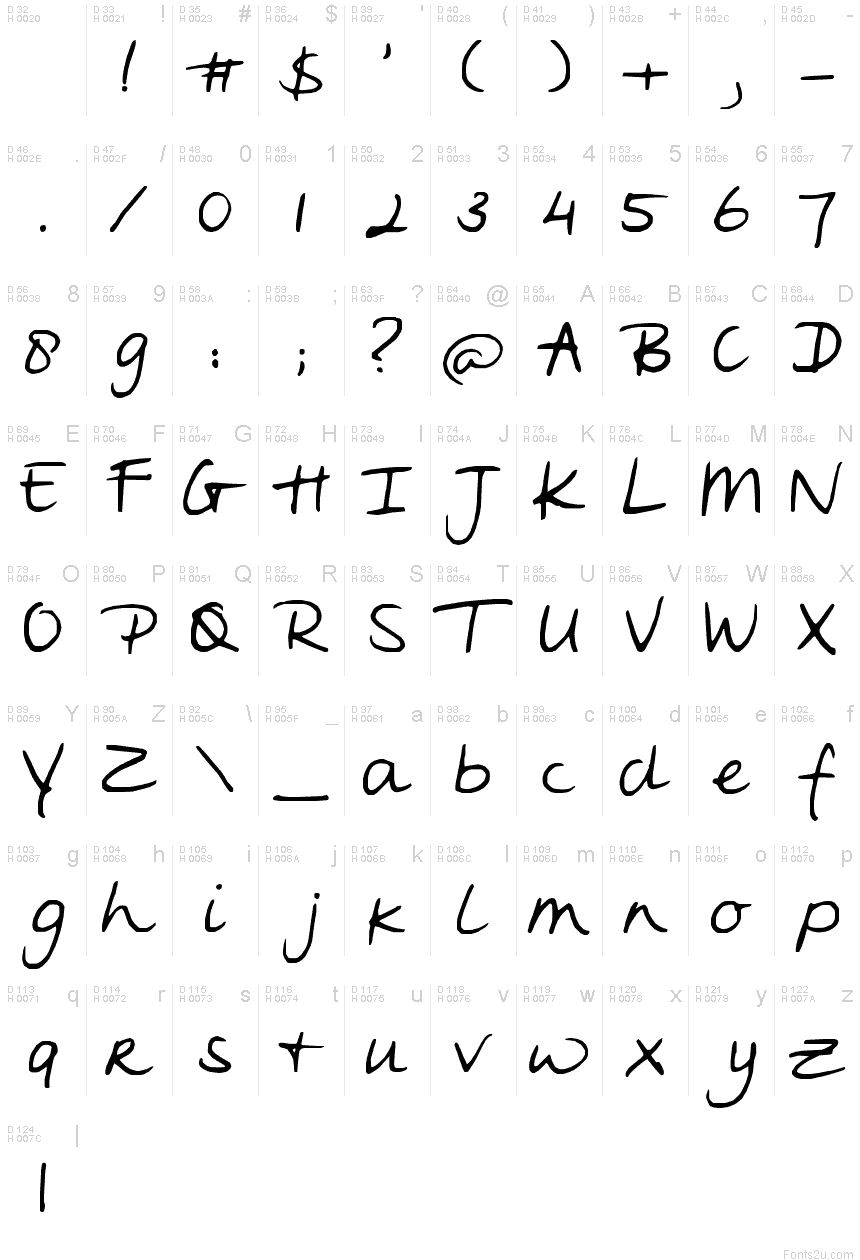
Oei by David Kerkhoff and Stephanie Oei is a free handwritten brush script with broad, uneven strokes and an easygoing personal manner. The letters shift between rounded loops and quick angular joins, with changing stroke widths that preserve the movement of ink drawn rapidly by hand.
This relaxed handwriting can suit both artisan food packaging and independent music posters, since each benefits from lettering that feels immediate and unpolished. Personal invitations and casual merchandise are equally credible settings. In editorial design, it can turn a magazine cover line or an informal feature opener into something resembling a contributor's own handwritten note.